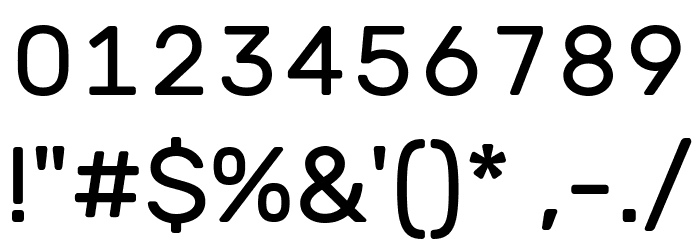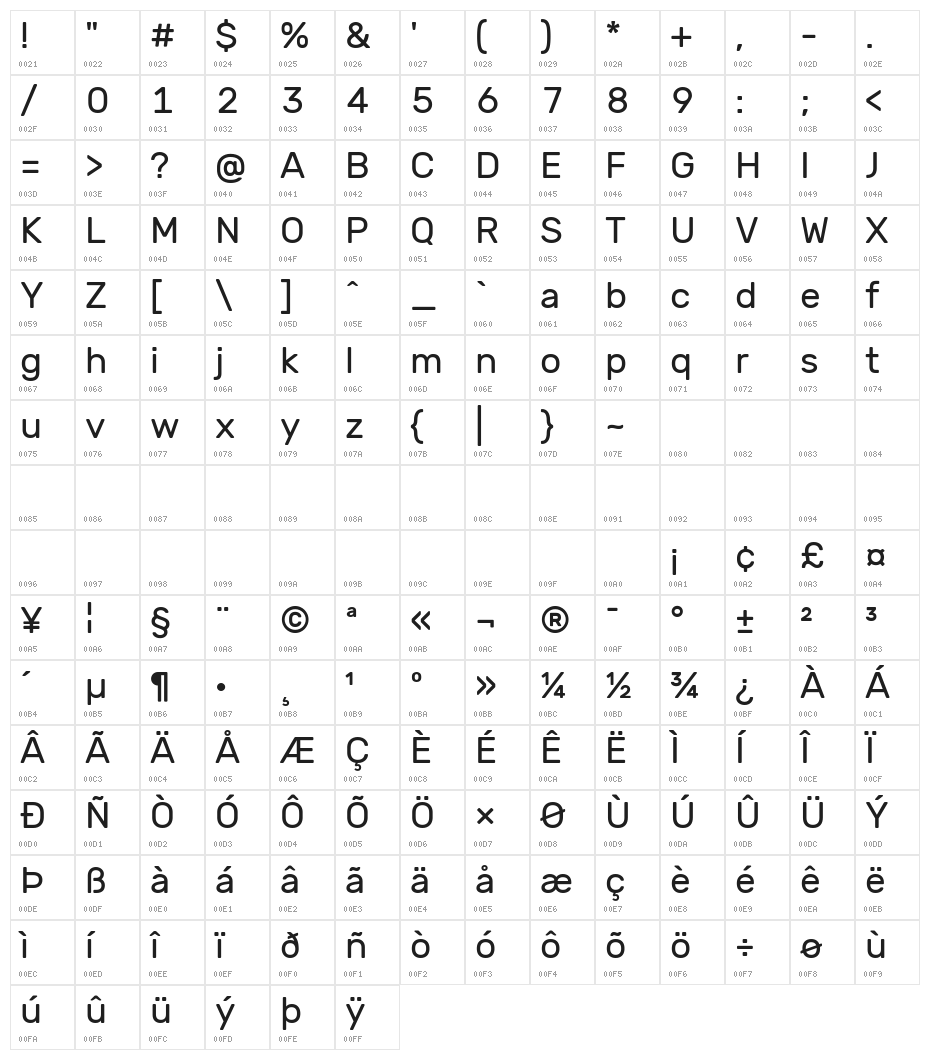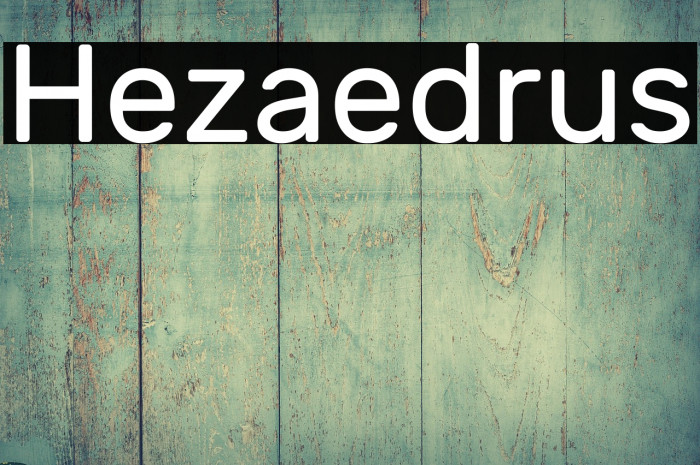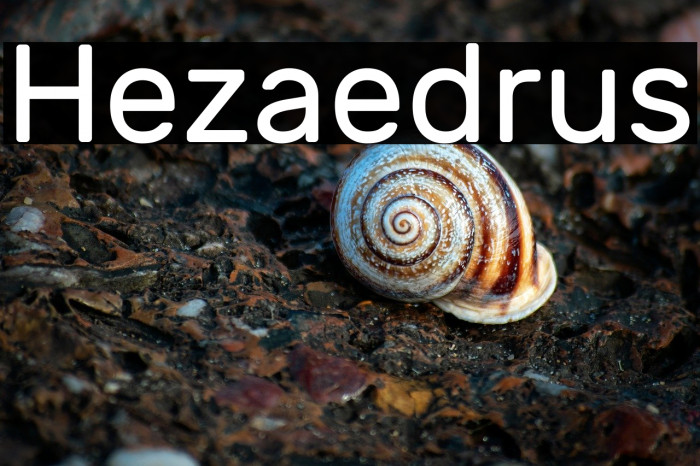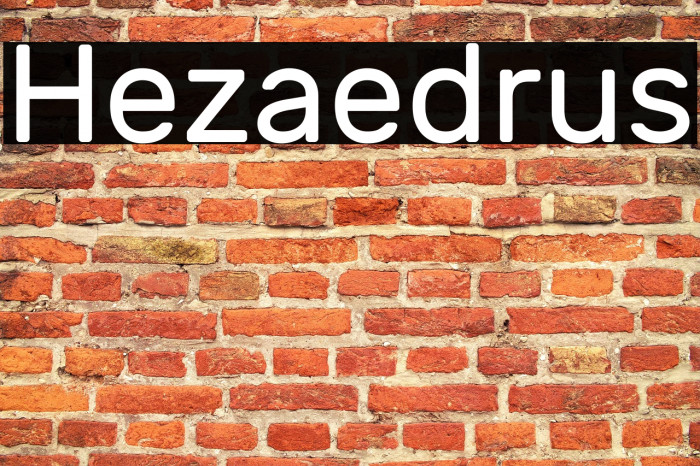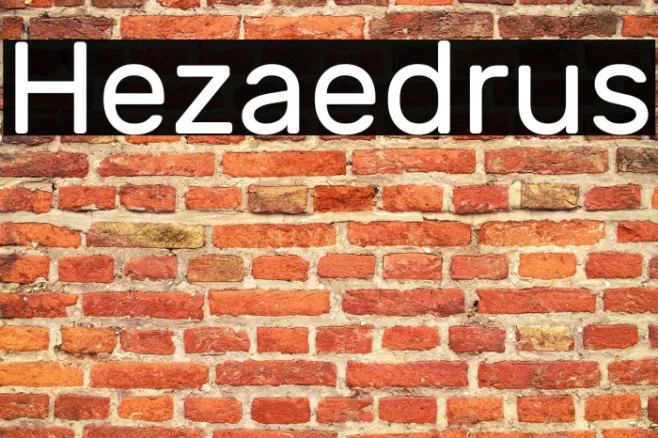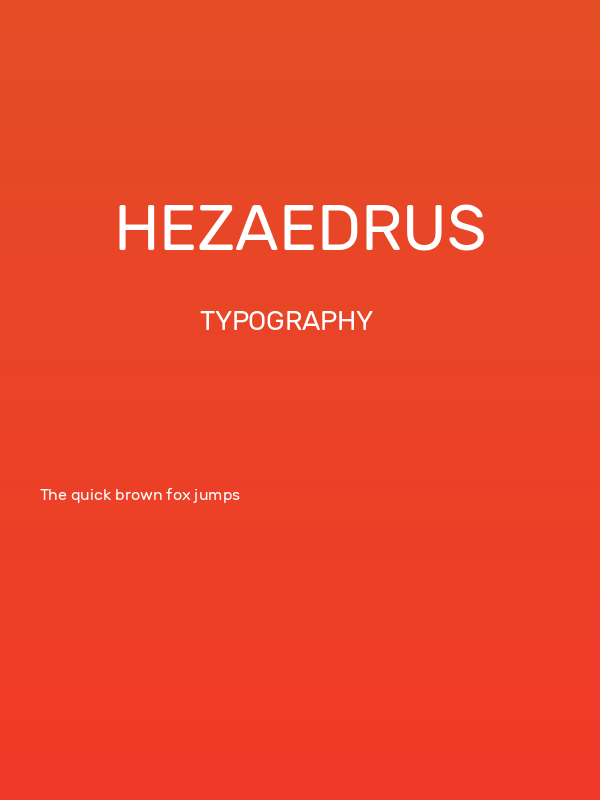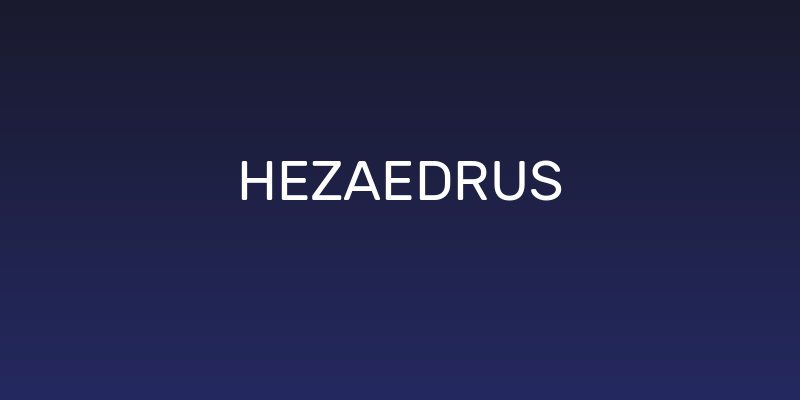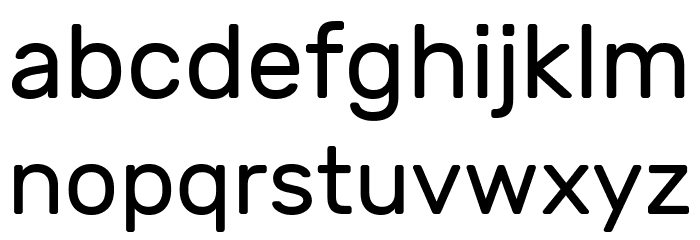
Hezaedrus Font
Hezaedrus Description
This font features a clean and modern sans-serif style with uniform stroke widths, providing a sleek and professional appearance. The characters are well-balanced with a geometric influence, offering a sense of clarity and precision. The uppercase letters are bold and assertive, while the lowercase letters maintain a consistent height and spacing, ensuring readability. The numerals are straightforward and align well with the overall design, making them suitable for various applications. Special characters are clearly defined, adding versatility to the font's usage. This font's simplicity and elegance make it ideal for contemporary design projects.
| Proposed Projects | Ideal for branding, web design, corporate materials, and editorial layouts. |